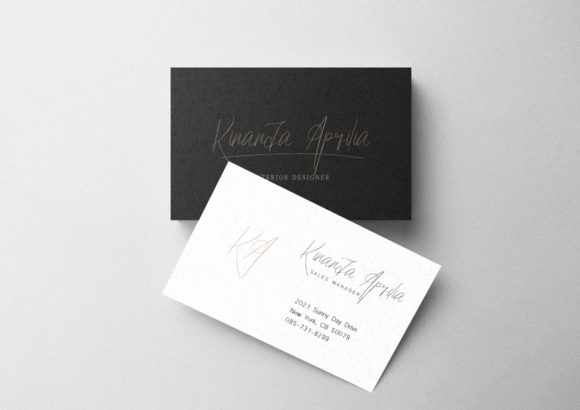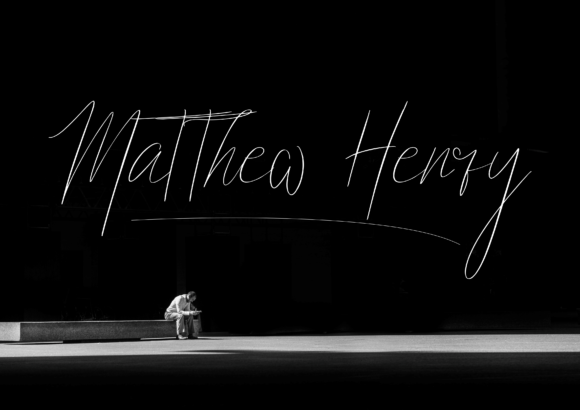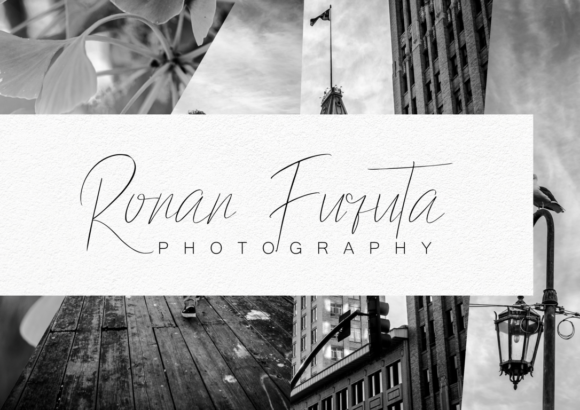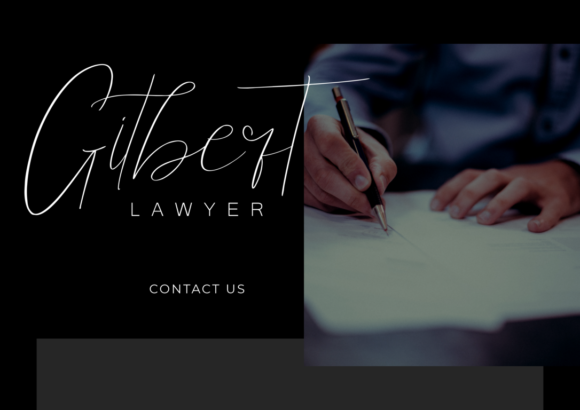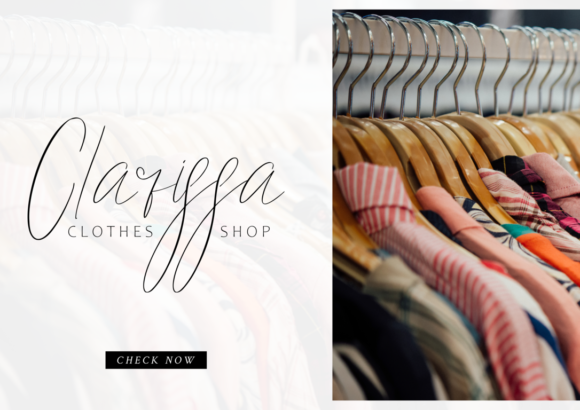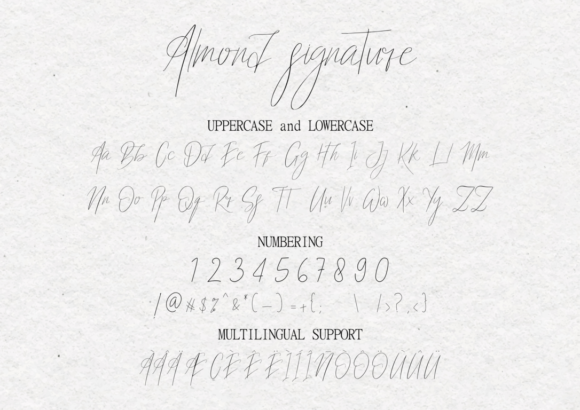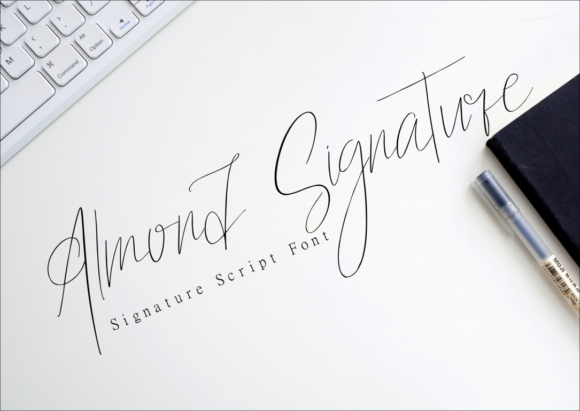
Introducing Almond Signature Font: Elevate Your Designs with Elegance
Are you on the hunt for a font that exudes style, sophistication, and a touch of delicacy? Look no further than the Almond Signature Font. This stunning script font is designed to add a clean, thin, and smooth vibe to any project, making it a perfect choice for designers and crafters alike. In this article, we’ll dive into the world of Almond Signature Font, exploring its features, benefits, and uses, as well as provide tips on how to make the most of this gorgeous font.
What is Almond Signature Font?
Almond Signature Font is a beautiful script font that boasts a stylish and delicate appearance. Its clean lines, thin strokes, and smooth curves make it an ideal choice for a wide range of design projects, from wedding invitations and branding materials to social media graphics and digital art. This font is sure to captivate your audience with its ravishing style, adding a touch of elegance and sophistication to any design.
Key Features of Almond Signature Font
- Clean and Thin Strokes: Almond Signature Font features clean, thin strokes that give it a light and airy feel, making it perfect for designs that require a subtle touch.
- Smooth Curves: The font’s smooth curves add a touch of elegance and sophistication, making it ideal for high-end designs and luxury brands.
- Delicate Appearance: The font’s delicate appearance makes it perfect for designs that require a feminine or whimsical touch.
- Versatile: Almond Signature Font is versatile and can be used for a wide range of design projects, from print to digital.
Benefits of Using Almond Signature Font
So, why choose Almond Signature Font for your design projects? Here are just a few benefits of using this gorgeous font:
- Adds Elegance and Sophistication: Almond Signature Font adds a touch of elegance and sophistication to any design, making it perfect for high-end brands and luxury products.
- Creates a Lasting Impression: The font’s unique and captivating style is sure to create a lasting impression on your audience, making it perfect for branding and marketing materials.
- Easy to Read: Despite its delicate appearance, Almond Signature Font is easy to read, making it perfect for body text and captions.
- Customizable: The font is highly customizable, allowing you to adjust the size, color, and style to fit your design needs.
Using Almond Signature Font in Your Designs
So, how can you use Almond Signature Font in your designs? Here are a few ideas to get you started:
- Wedding Invitations: Almond Signature Font is perfect for wedding invitations, adding a touch of elegance and sophistication to your wedding stationery.
- Branding Materials: Use the font to create stunning branding materials, such as logos, business cards, and letterheads.
- Social Media Graphics: Add a touch of elegance to your social media graphics, such as Instagram posts and Facebook covers.
- Digital Art: Use Almond Signature Font to create stunning digital art, such as illustrations and typography.
Tips and Tricks for Working with Almond Signature Font
Here are a few tips and tricks to help you get the most out of Almond Signature Font:
- Pair with Bold Fonts: Pair Almond Signature Font with bold fonts to create a striking contrast and add visual interest to your design.
- Use Pastel Colors: Use pastel colors to create a soft and feminine look that complements the font’s delicate appearance.
- Experiment with Sizes: Experiment with different font sizes to create a hierarchy of text and add visual interest to your design.
- Add Decorative Elements: Add decorative elements, such as illustrations and graphics, to create a unique and eye-catching design.
| Font Name | Almond Signature Font |
| Author | nomlimofont |
In conclusion, Almond Signature Font is a stunning script font that is sure to elevate your designs with its elegance and sophistication. With its clean lines, thin strokes, and smooth curves, this font is perfect for a wide range of design projects, from wedding invitations and branding materials to social media graphics and digital art. By following the tips and tricks outlined in this article, you can create stunning designs that showcase the beauty of Almond Signature Font.